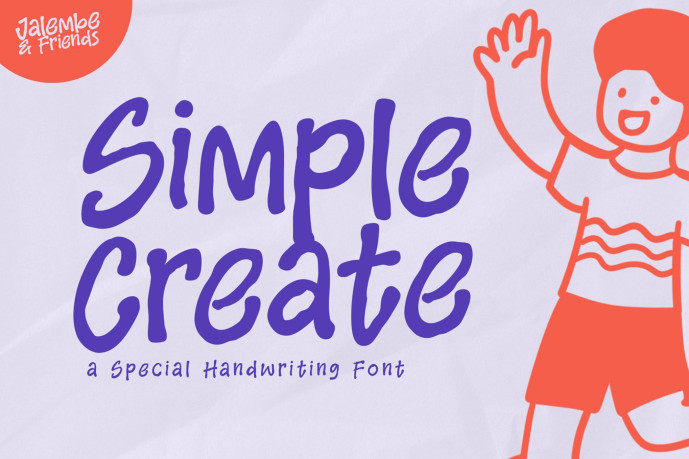
Simple Create Display Font
Simple Create Display Font a fun modern display typeface with cheerful theme for your fun project. Simple Create font suitable for logo, branding, greeting card, poster and any design that you create.